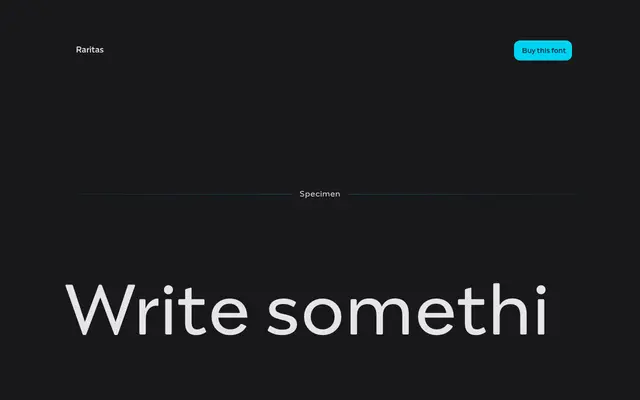
Raritas
Capitalics · Michał Jarociński
A 20-style serif family by Michał Jarociński, spanning Thin to Black with true italics for editorial and branding work.
Ten upright weights from Thin to Black, each paired with a true italic, give Raritas a broad range suited to both editorial layouts and identity work. The family is sold in full or via targeted packs — an Editorial Pack of eight styles and a Branding Pack of ten — making it accessible at different project scales. Capitalics positions it as a versatile workhorse with typographic character rather than neutrality.
The specimen imagery and naming conventions suggest a refined contemporary serif with editorial applications; the wide weight range and true italics position it firmly in the text and display serif tradition.